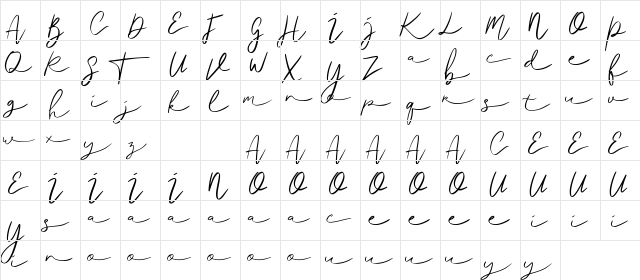
Ralisto Regular
Design Context for Ralisto Typeface
Ralisto is a composed and adaptable typeface that performs quietly and consistently across a wide range of design contexts.